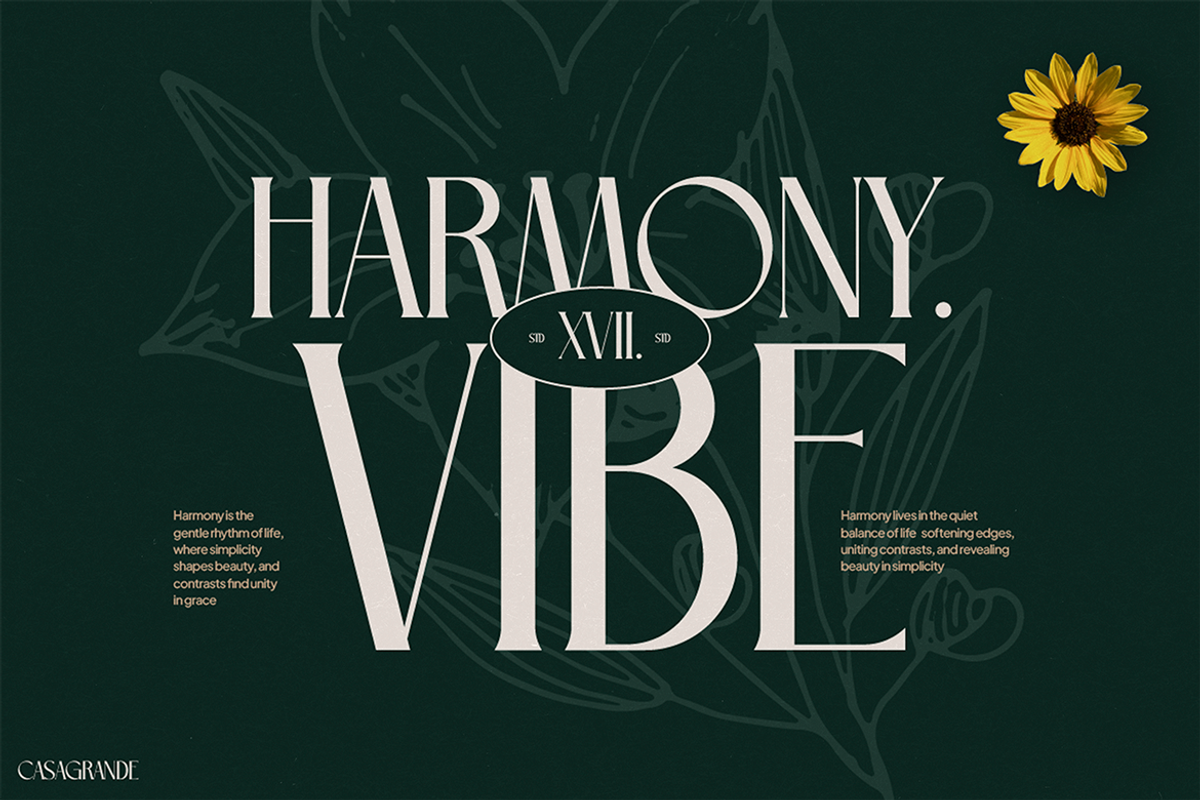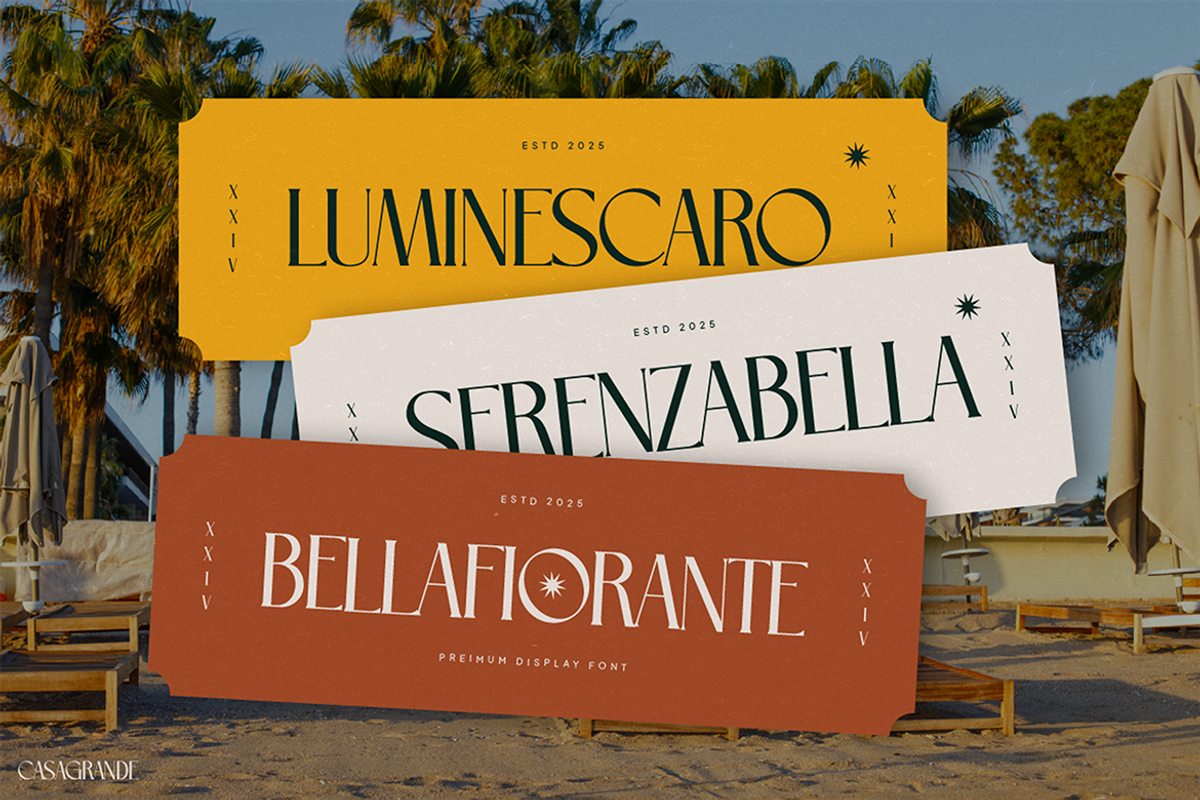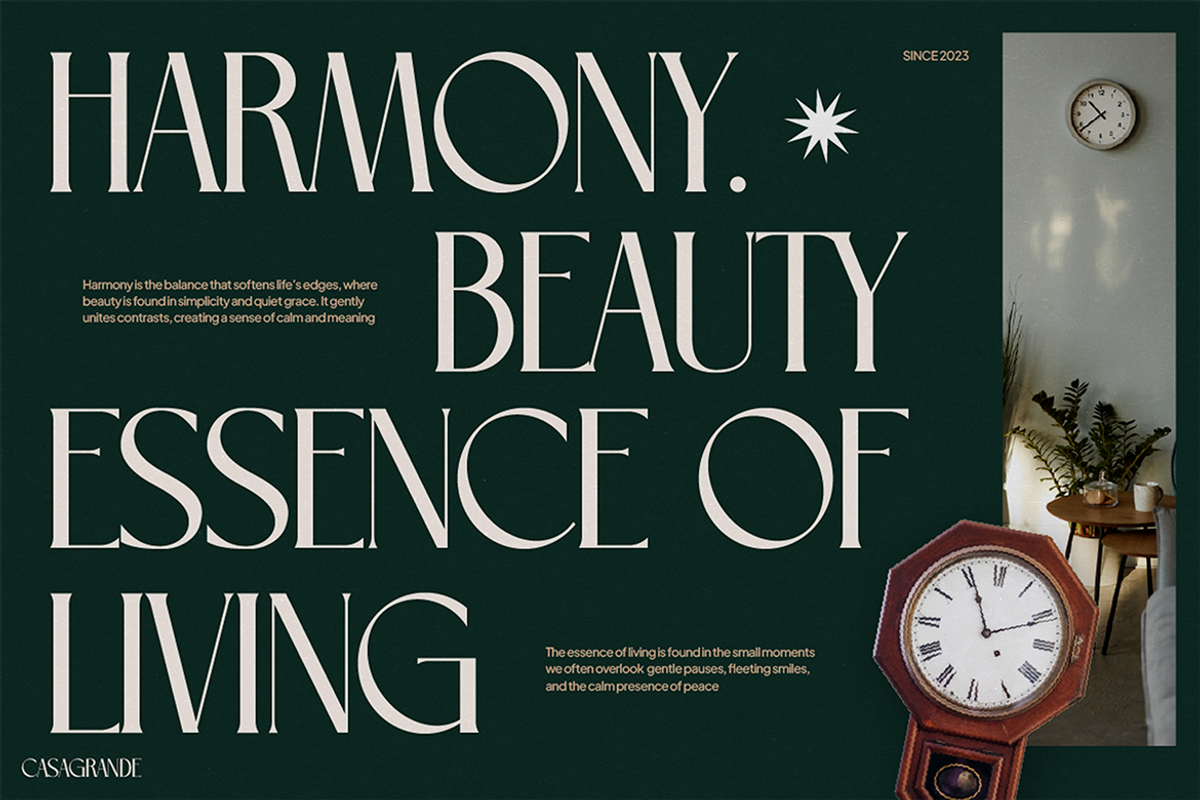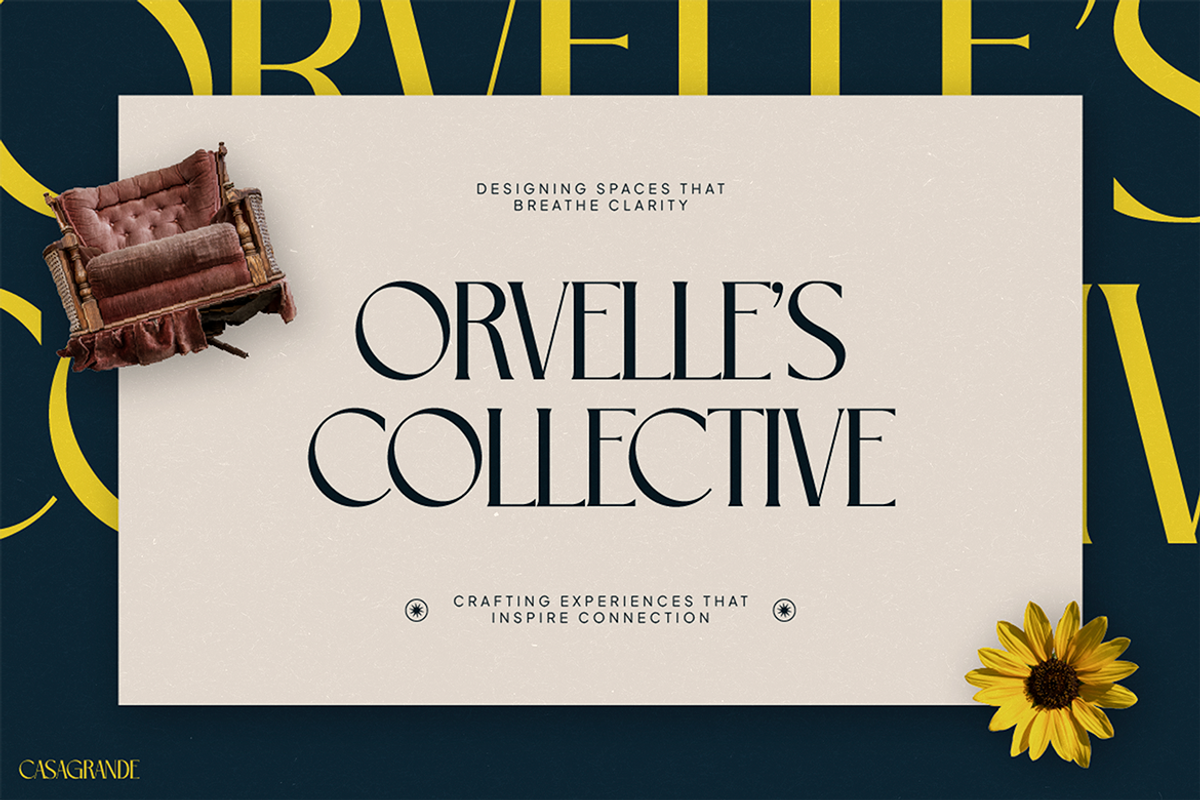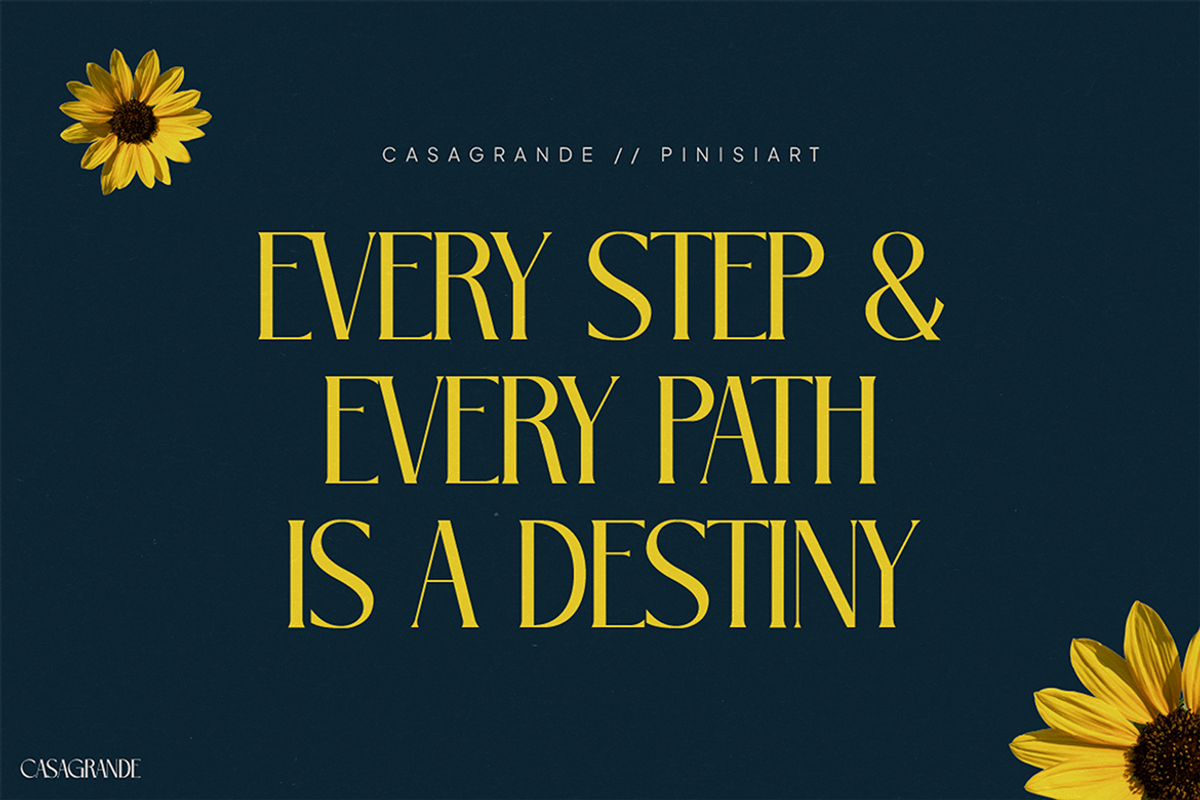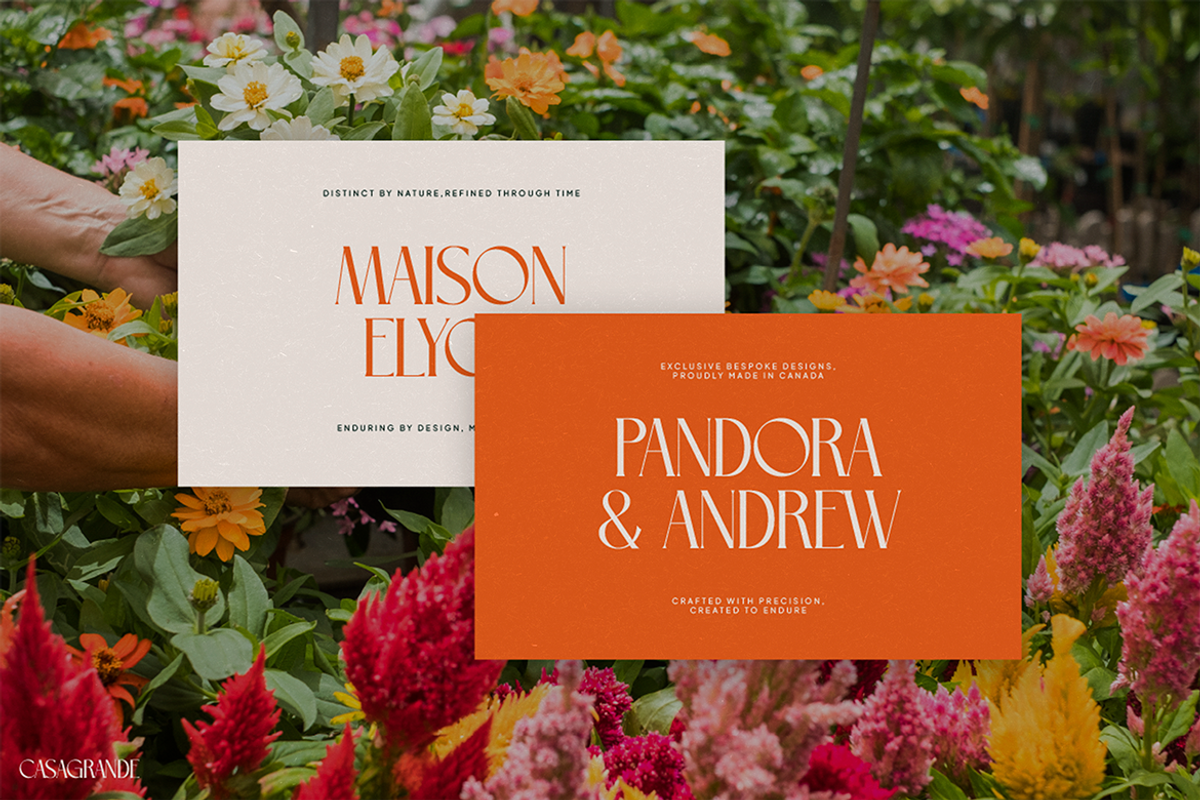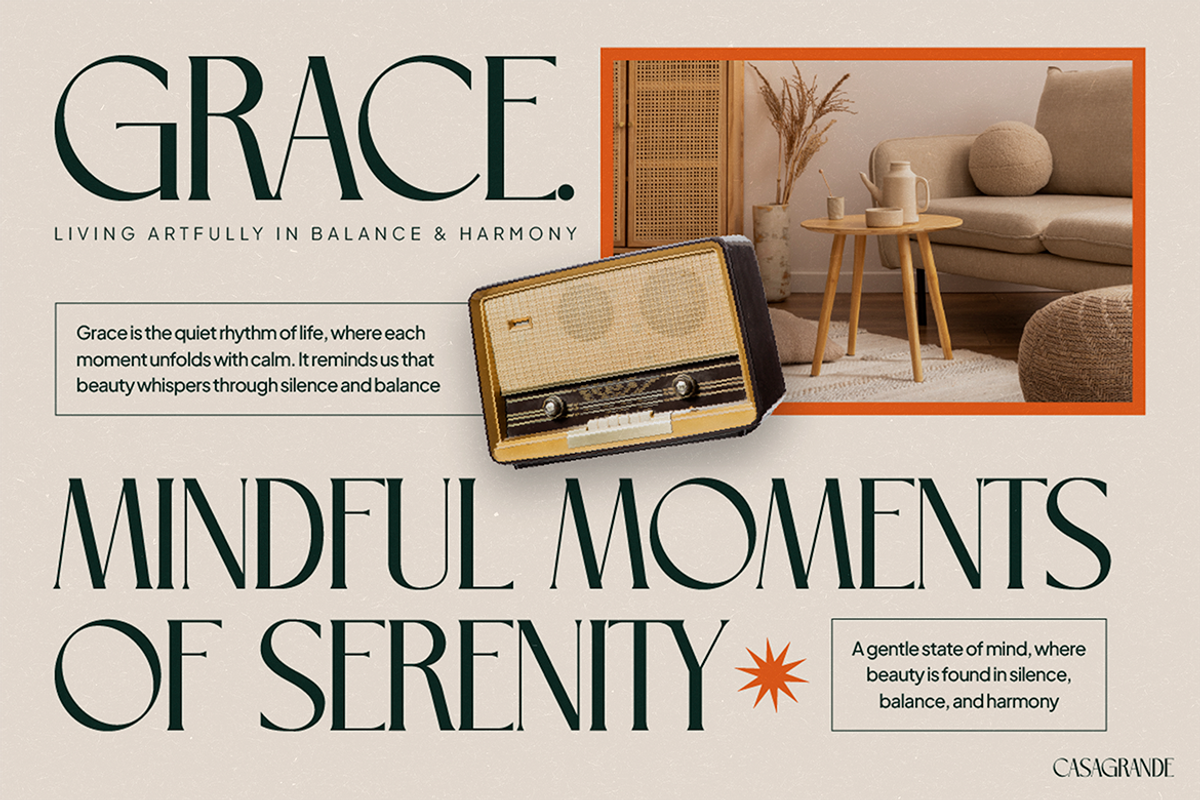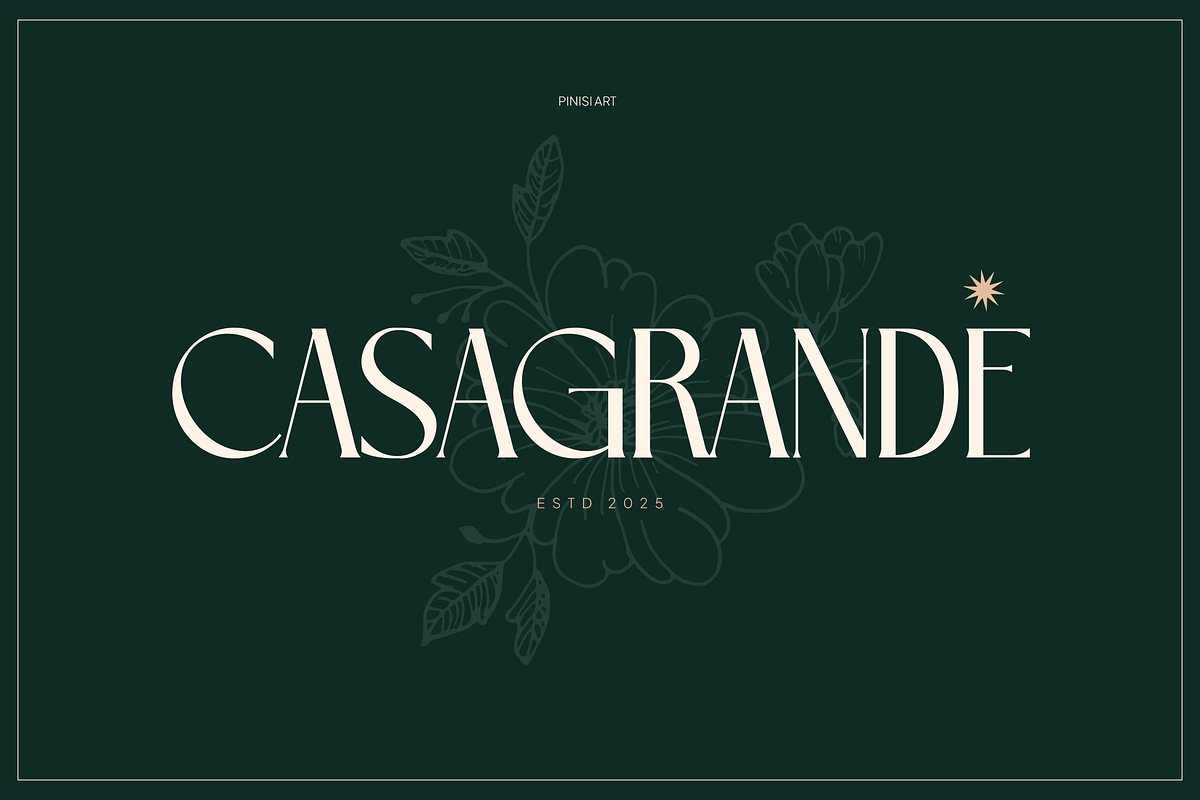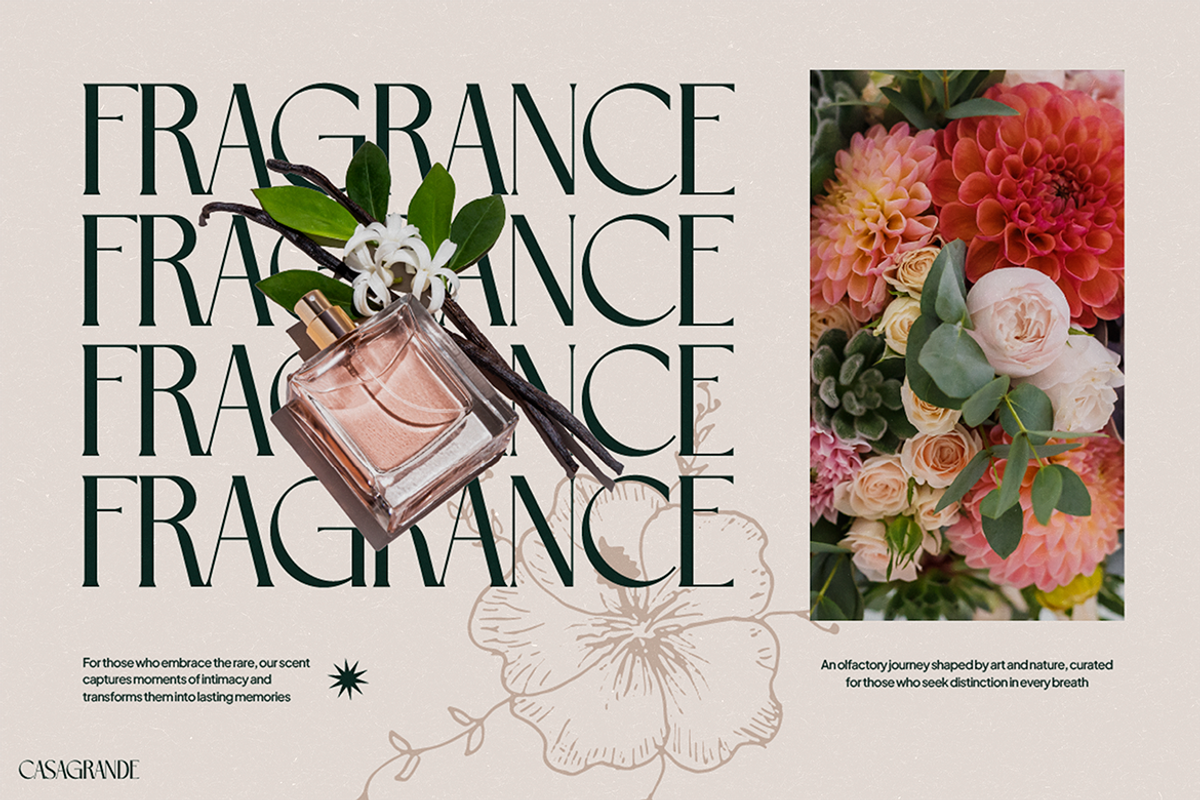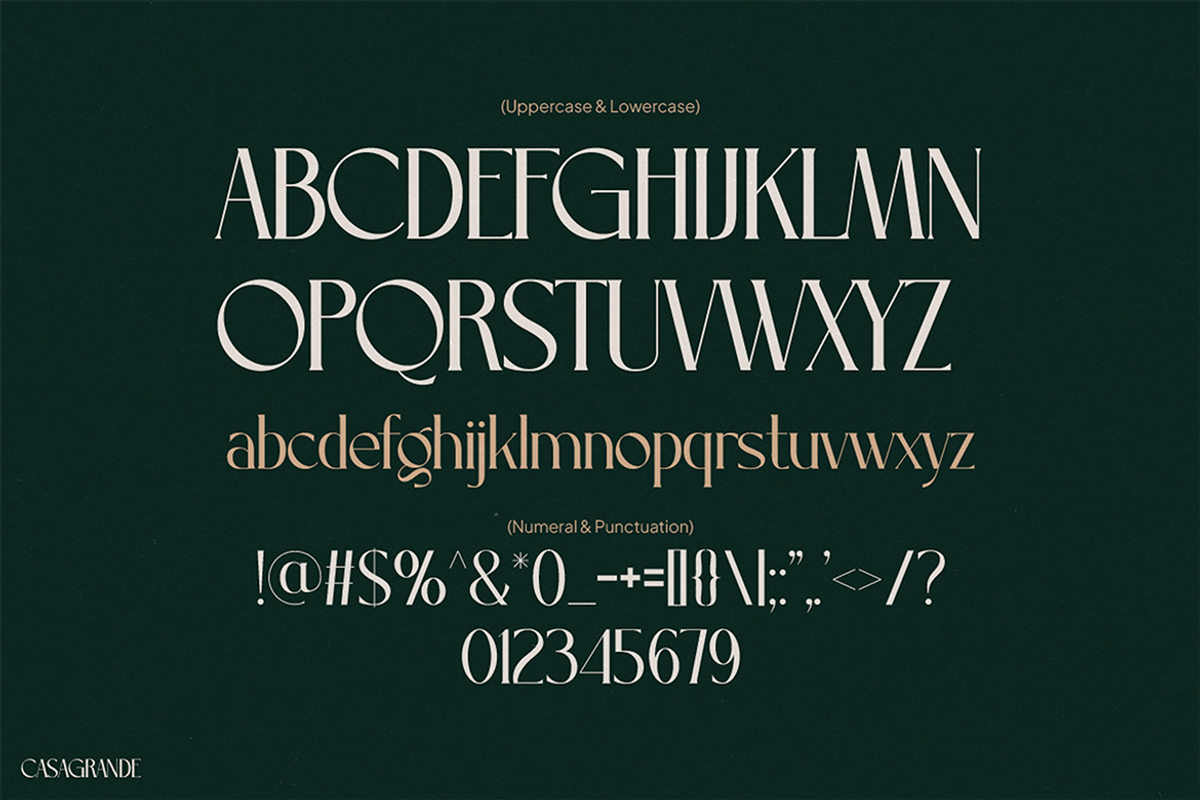
Casagrande
Instagram Font Casagrande is not just a typeface—it is a bold design asset that blends sophistication with creativity. From the very first glance, you notice its refined curves, elegant contrasts, and timeless strokes. Moreover, this font maintains harmony between modern style and classical grace, which makes it truly versatile. Unlike ordinary fonts that fade into the background, Casagrande instantly elevates your design and communicates a strong aesthetic. Therefore, it becomes the perfect choice when you need a font that feels stylish yet powerful.In addition, Casagrande’s clean lines and artistic details allow it to adapt to many design needs. Whether you want to create striking headlines, delicate invitations, or stunning Instagram content, this font consistently delivers beauty and impact. Consequently, your projects will look polished, professional, and unforgettable.